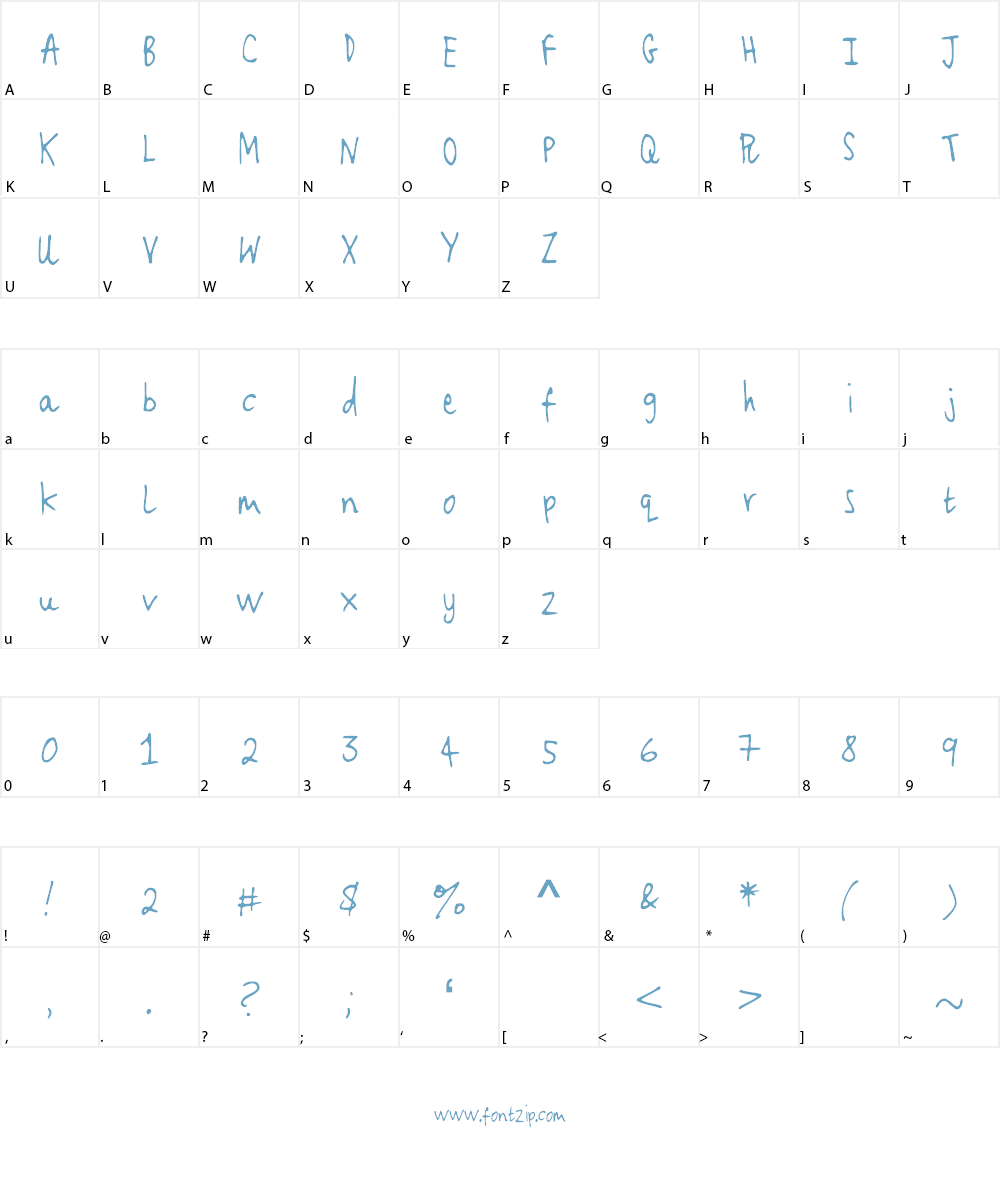
Fun font to use. Best used with more kerning (larger spaces between the letters). Again good teamed with sans serif - arial, helvetica, futura, myriad.